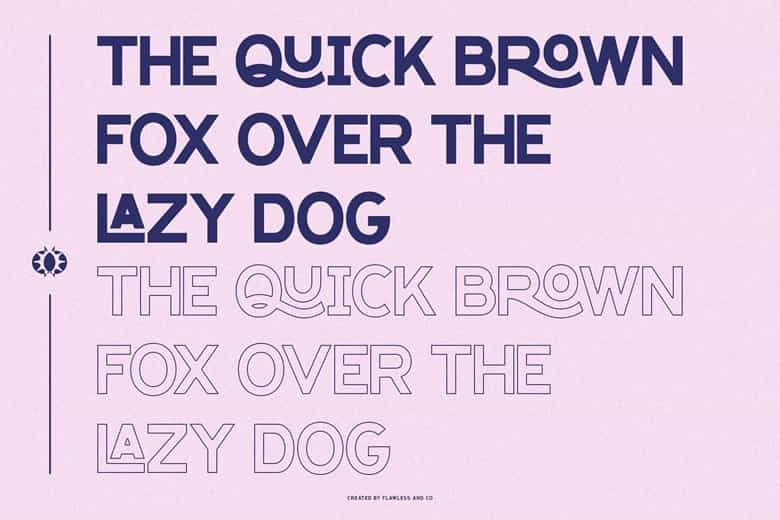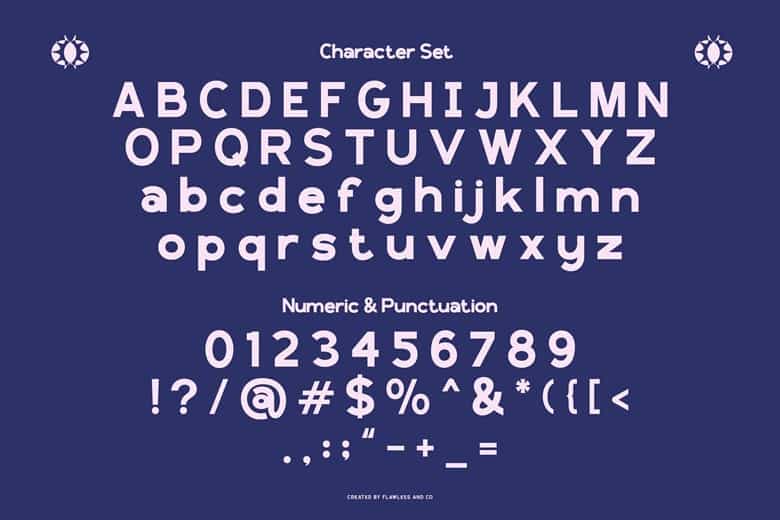
Queliru is a popular sans serif display typeface that exudes strength and modernity. This font has clean lines and a great visual impact and can be used for branding, headlines, posters, sports designs, advertising, as well as social media graphics. The bold structure makes it good for projects where you may need a powerful and stand out look.